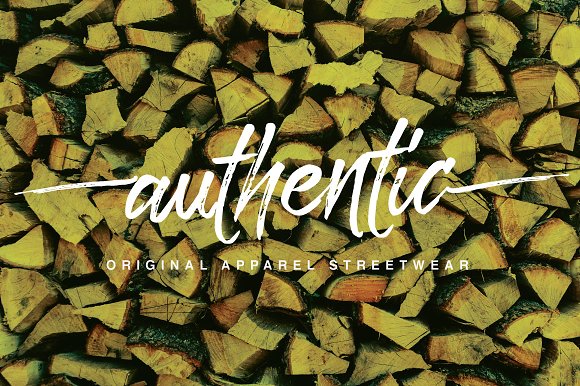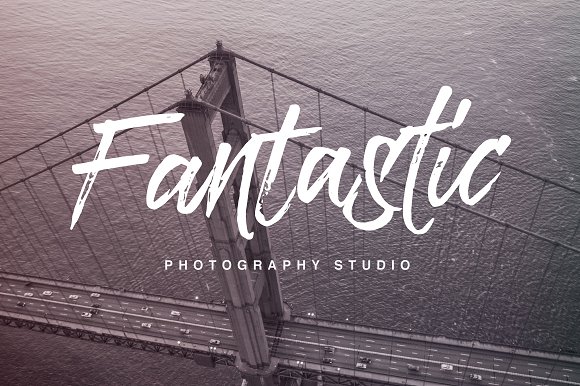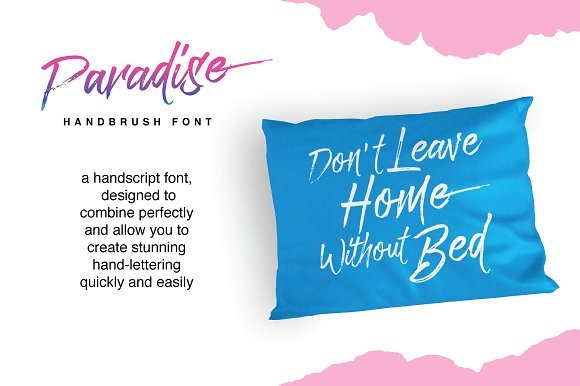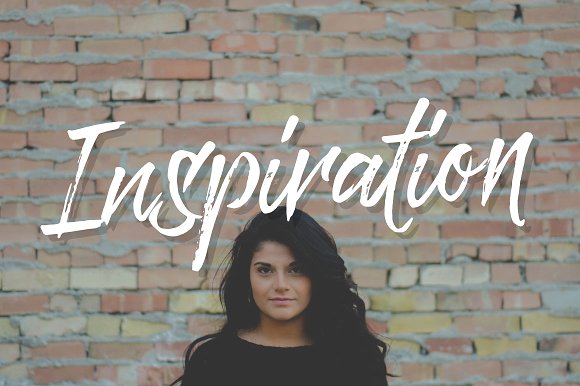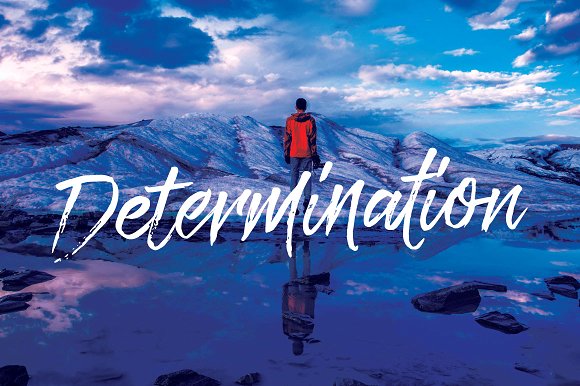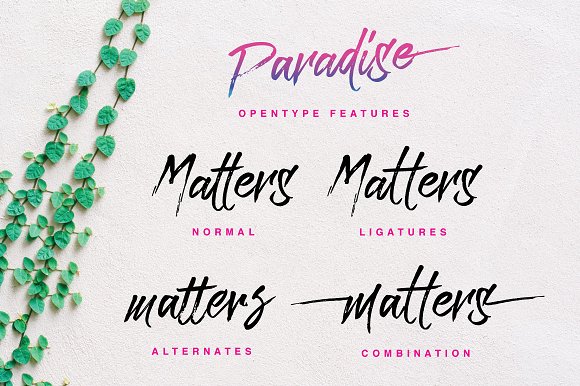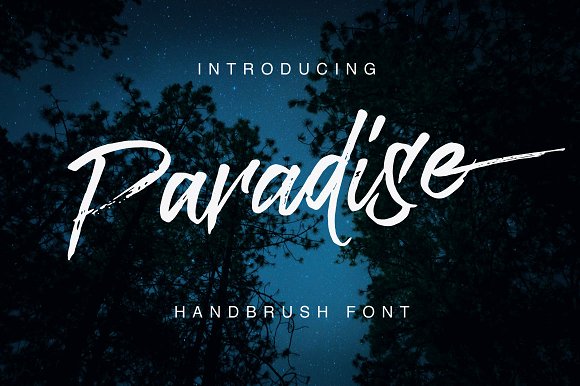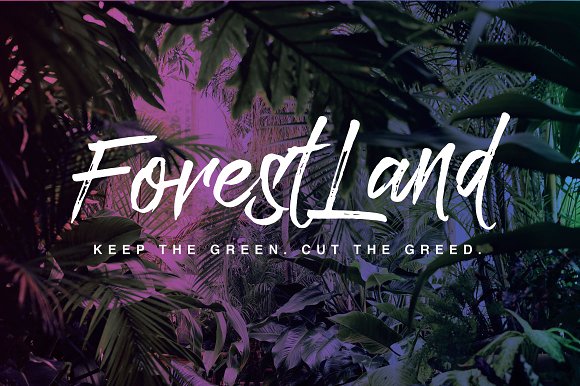
Paradise Typeface
Paradise Typeface is a beautiful hand Painting script give the natural looks. Alternate character contain with Ligature and more. You can access all those alternate characters by using OpenType savvy programs such as Adobe Illustrator and Adobe InDesign.
Great for Apparel Brand, Logos, printed quotes, invitations, image overlays, greeting cards, product packaging, text headers, any greeting cards, book cover, Painting design style, or any design that needs natural and personal touch & whatever else your imagination holds! . Mix and match the alternate characters to add an attractive message to your design.